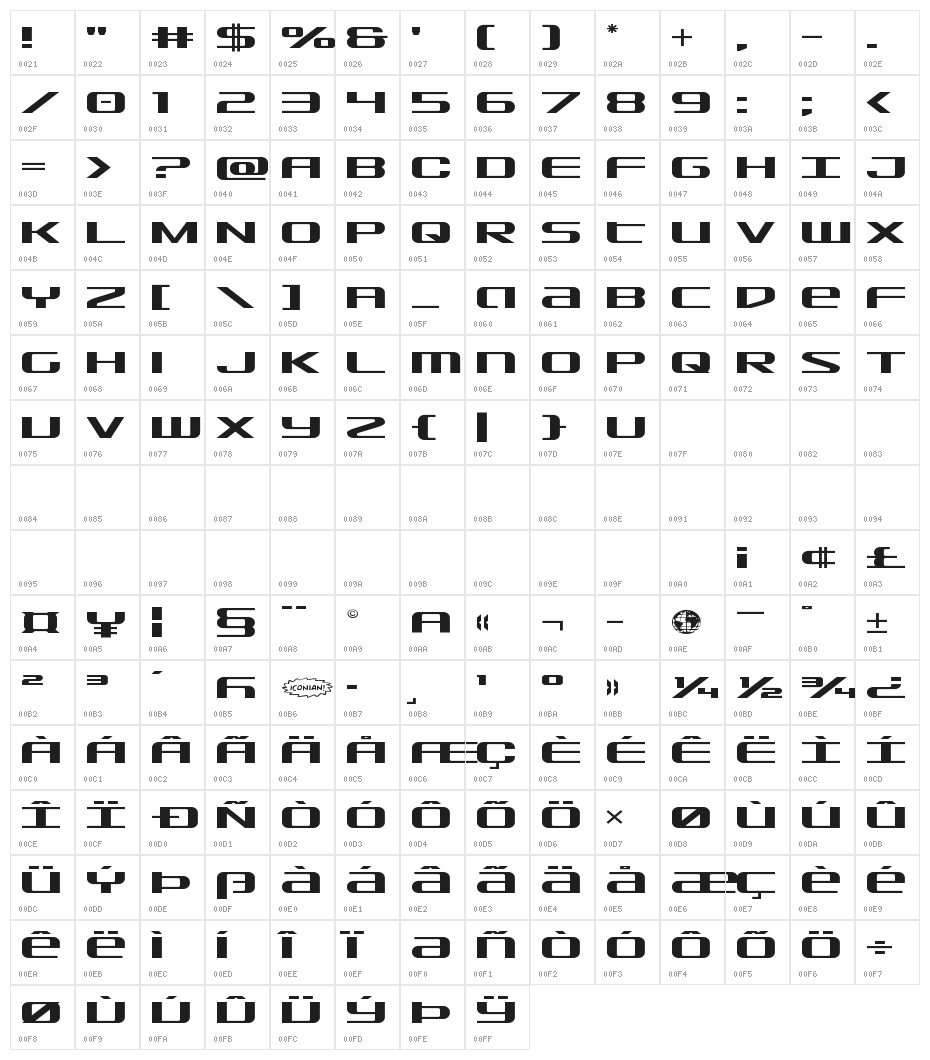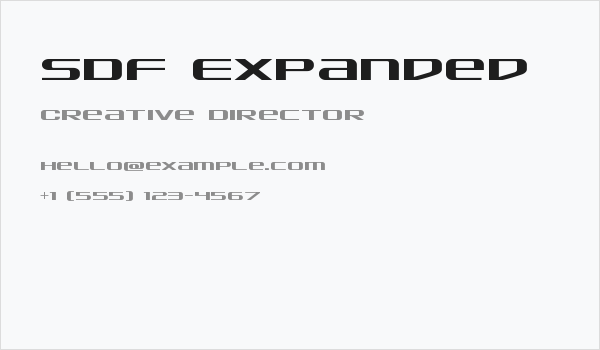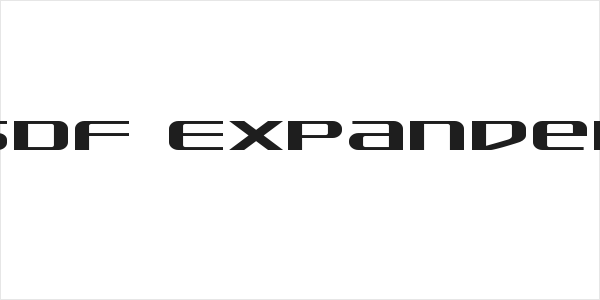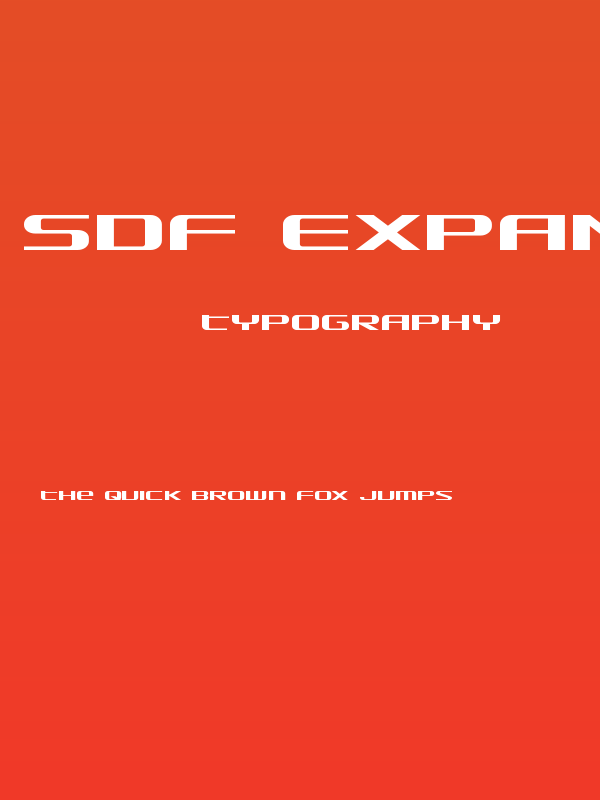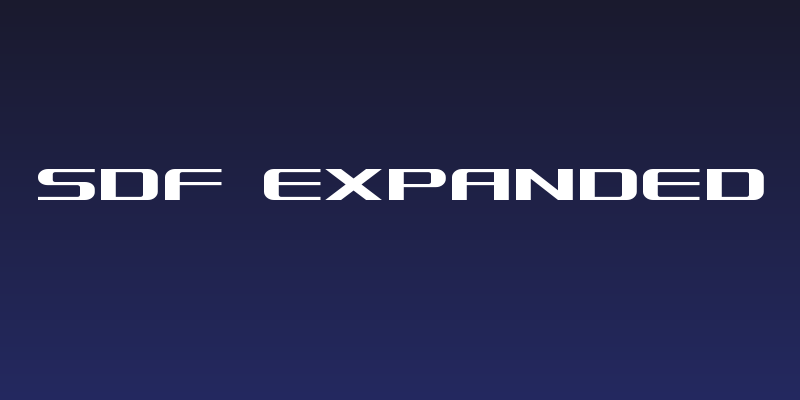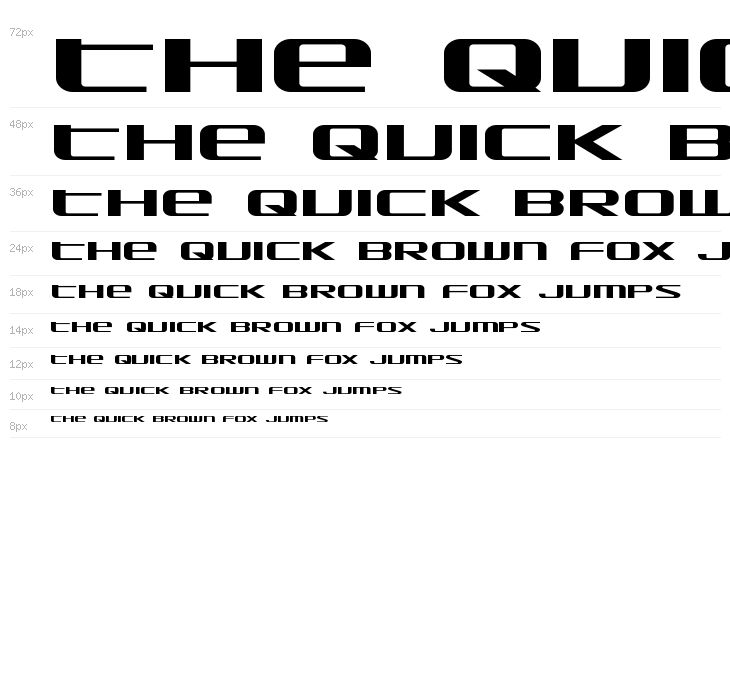
SDF Expanded Font
SDF Expanded Description
This font features a futuristic and geometric design, characterized by its bold and angular letterforms. The uppercase and lowercase letters maintain a consistent style, with sharp edges and a streamlined appearance. The numerals are equally bold, with a uniform height that aligns with the uppercase letters. Special characters are designed to match the overall aesthetic, providing a cohesive look across all glyphs. The font's expanded width gives it a commanding presence, making it ideal for attention-grabbing headlines or display purposes. Its modern and sleek style is well-suited for projects that require a contemporary and cutting-edge look.
Proposed ProjectsIdeal for technology branding, sci-fi posters, video game titles, and modern advertising.